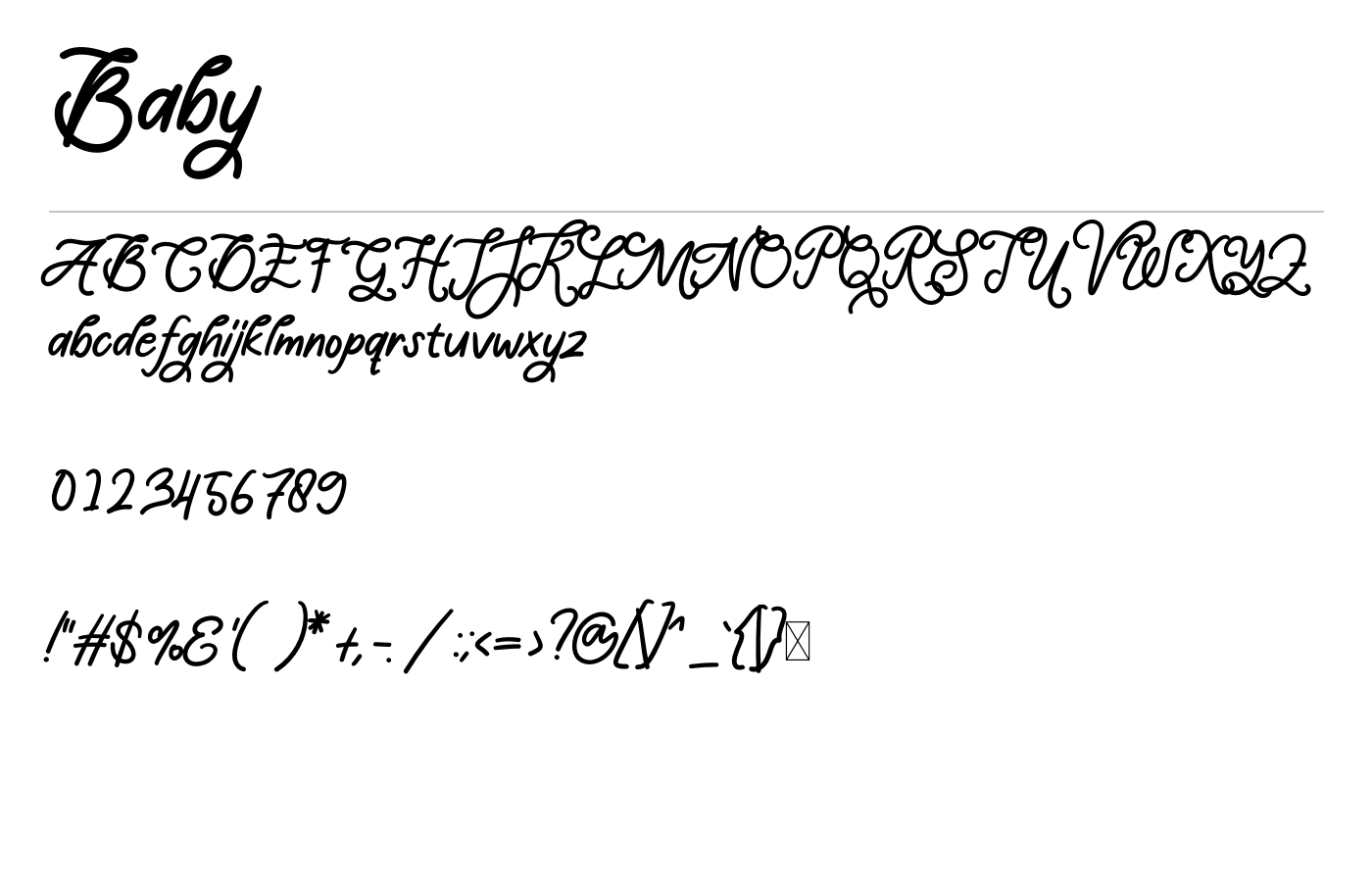
Baby Font is a playful, script-style typeface with smooth, flowing strokes and a lively, handwritten feel. Its moderate weight and slightly condensed letterforms create an inviting, casual elegance perfect for friendly branding, greeting cards, or children’s products. The font’s unique loops and swirls add charm and personality, making it ideal for designs that seek a warm, approachable, and creative touch.
Baby Font